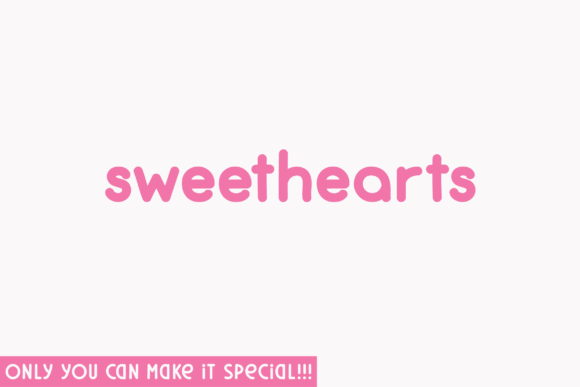
Prepare to fall head over heels for Sweetheart! This enchanting sans-serif font will transport you to a bygone era with its playful nostalgia and timeless elegance.
Crafted by the talented Hanna Bie, Sweetheart is a true masterpiece, embodying the essence of vintage charm and modern appeal. Each character exudes a warm and inviting personality, perfect for capturing the essence of your baby business.
With its delicate curves and flowing lines, Sweetheart adds a touch of whimsy to any design. Picture it adorning your baby products, website, and social media, evoking a sense of nostalgia and delight.
Whether you're creating adorable onesies, heartwarming announcements, or captivating marketing materials, Sweetheart has the versatility to elevate your designs. Its classic style effortlessly complements any color scheme, making it the perfect choice for a wide range of projects.